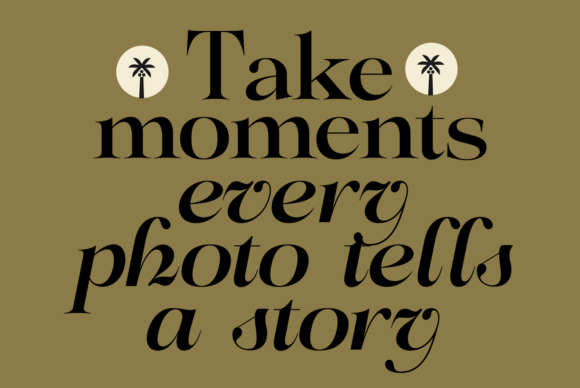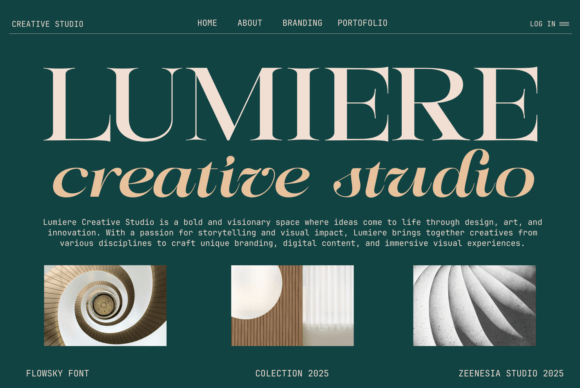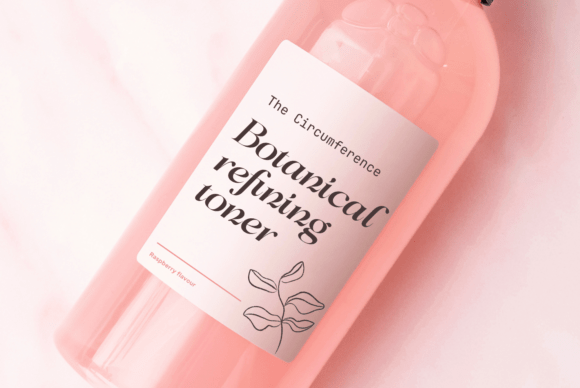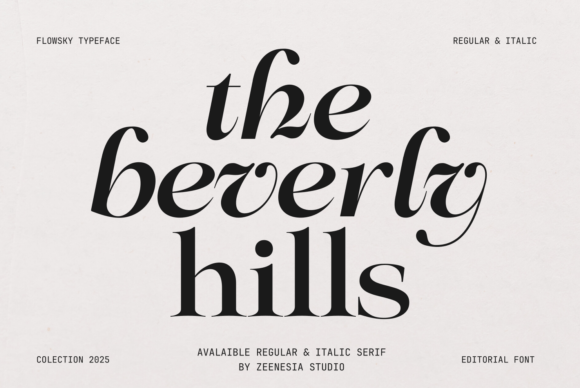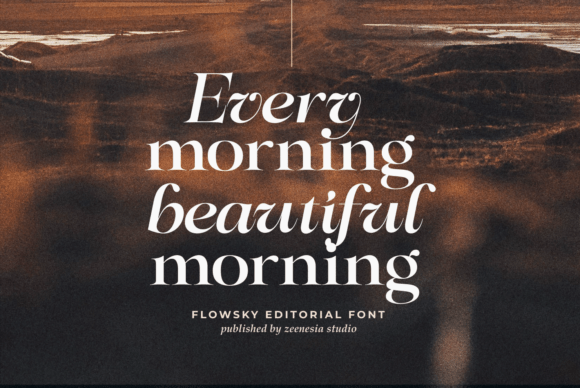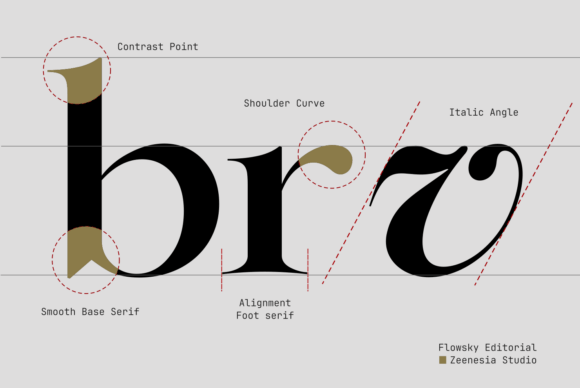
The Elegance of Editorial Design: Introducing Flowsky Editorial Font
Have you ever spent hours pouring over a magazine, mesmerized by the perfect balance of typography and design? That’s the magic of editorial design, and it all starts with the right font. For designers looking to elevate their premium branding and create stunning editorial aesthetics, the Flowsky Editorial Font is a game-changer. This modern serif typeface combines refined curves, expressive ligatures, and a sophisticated character style to create a truly unique and captivating visual experience.
What sets the Flowsky Editorial Font apart is its versatility – perfect for magazines, logos, packaging, digital layouts, and creative typographic compositions. With its clean structure and elegant details, this font is a valuable tool for designers looking to create a professional and contemporary look. Whether you’re crafting a minimalist logo or a detailed print publication, the Flowsky Editorial Font is the perfect choice to make your message stand out.
Flowsky Editorial Font Key Features
- Size and Resolution: The font comes in 6 font sizes, ranging from 8 to 72 points, with a resolution of 300 DPI, suitable for high-quality printing and digital use.
- Unique Characteristics: Flowsky Editorial Font features a clean, modern design with subtle rounded edges, making it perfect for editorial and publishing content.
- Font Styles: The font includes 4 font styles: Regular, Italic, Bold, and Bold Italic, providing flexibility for various design needs.
- Language Support: Flowsky Editorial Font supports a wide range of languages, including Latin, Cyrillic, and Greek scripts, making it suitable for global publishing and editorial projects.
- Scalability: The font is designed to be highly scalable, ensuring that it remains legible and visually appealing even at small font sizes.
Flowsky Editorial Font Review
As a designer, I’ve had the chance to work with the Flowsky Editorial Font, and I must say, it’s a great addition to any typography collection. ✨ The font’s clean lines and elegant feel make it perfect for editorial and publishing projects. The font is highly legible, even at smaller font sizes, which is a must-have for any serious publication.
One of the standout features of Flowsky Editorial Font is its versatility. It comes in a range of weights and styles, from light to bold, which makes it easy to use for both headings and body text. ✨ The font also includes a range of OpenType features, such as ligatures and swashes, which add a touch of sophistication to any design.
- ⚠️ Limited language support: Flowsky Editorial Font only includes a limited set of languages, which may be a concern for designers working on international projects.
- ⚠️ Not ideal for display text: While Flowsky Editorial Font is great for body text, it may not be the best choice for display text or headlines, as it can become too dense and overwhelming.
Overall, Flowsky Editorial Font is a solid choice for designers looking for a clean, elegant font for editorial and publishing projects. While it may have some limitations, its versatility and high legibility make it a great addition to any typography collection.
For best results, use the font in headings and titles to add a touch of sophistication and elegance.
Use the font to create eye-catching headings, titles, and captions that add a professional touch to your designs.
Use the font to create engaging headings, titles, and captions that add a touch of professionalism to your presentations and documents.
Flowsky Editorial Font is ideal for:
Magazine and newspaper headlines
Book titles and author names
Website headings and titles
Business presentations and reports
Use the font to add a touch of sophistication and elegance to your designs and content.
Q: What is the recommended font size for optimal readability with the Flowsky Editorial Font?
The recommended font size for optimal readability with the Flowsky Editorial Font is between 12pt and 14pt, depending on the application and intended use. However, feel free to experiment with different font sizes to find the best fit for your design project.